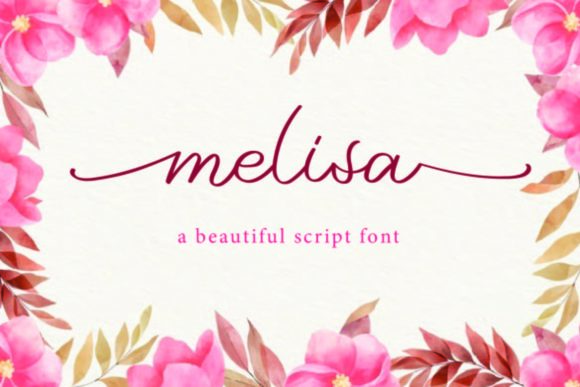
About Melisa Font
Melisa feels equally charming and elegant. This stunning handwritten font is a stylish homage to classic calligraphy. It features a varying baseline, smooth lines, gorgeous glyphs and stunning alternates.
Whether you’re looking for fonts for Instagram or calligraphy scripts for DIY projects, Melisa will turn any creative idea into a true piece of art!